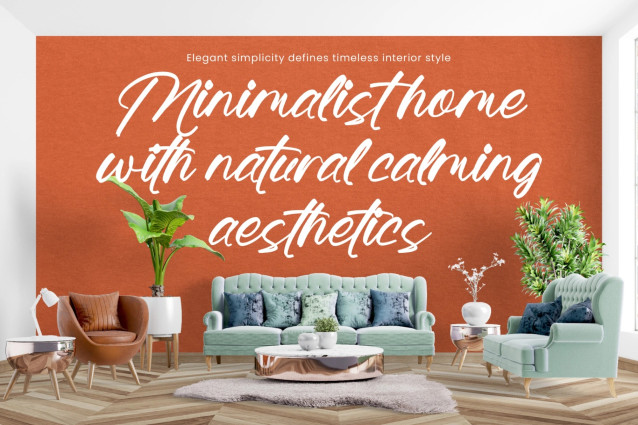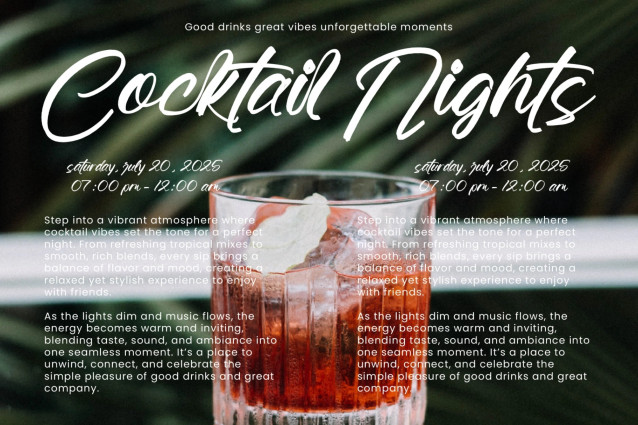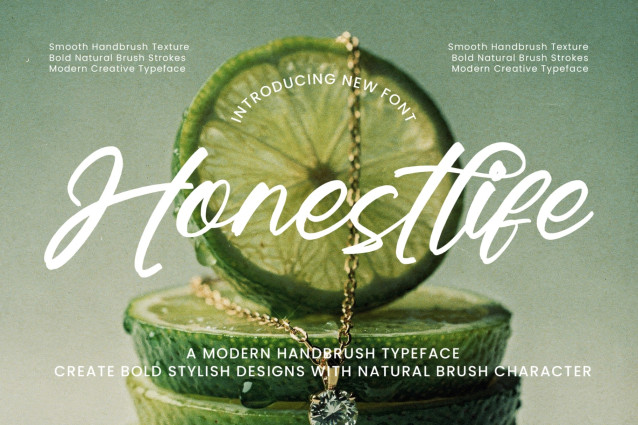
Honestlife Font
Honestlife Font is a modern handbrush typeface crafted with smooth brush textures and bold natural strokes. Designed to capture the authentic feel of hand-painted lettering, it brings a fresh, energetic, and expressive personality to every project while maintaining excellent readability.
The flowing letterforms and handcrafted details create a perfect balance between casual elegance and modern creativity. Whether you’re designing eye-catching branding or stylish social media content, Honestlife delivers a warm and confident handwritten appearance that instantly stands out.